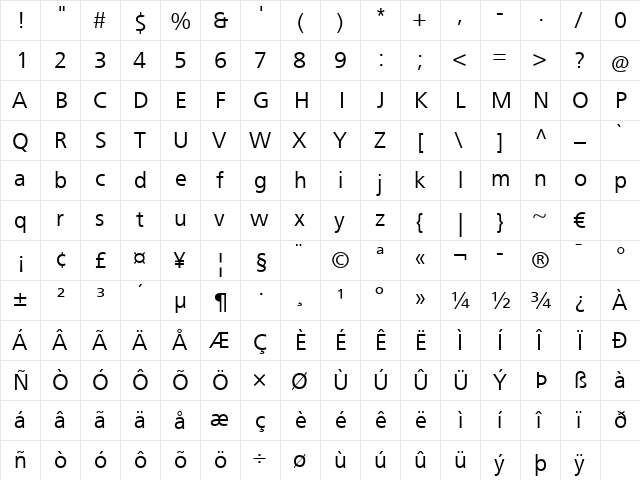
FrutigerNext LT Regular Regular
| Foundry | Linotype library GmbH |
| Designer | Adrian Frutiger |
Design Context for FrutigerNext LT Regular Typeface
FrutigerNext LT Regular offers clean, dependable letterforms without strong stylistic allegiance, making it a practical choice for designers who need flexibility. The delicate stroke weight brings airiness and refinement to layouts.